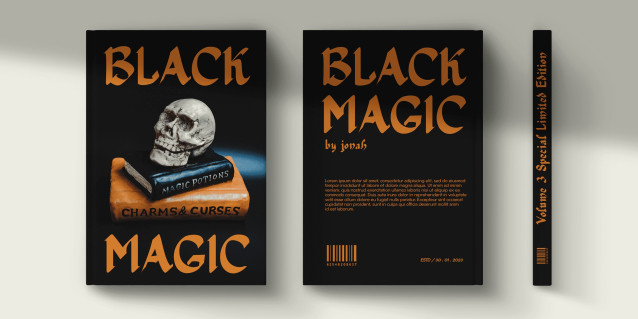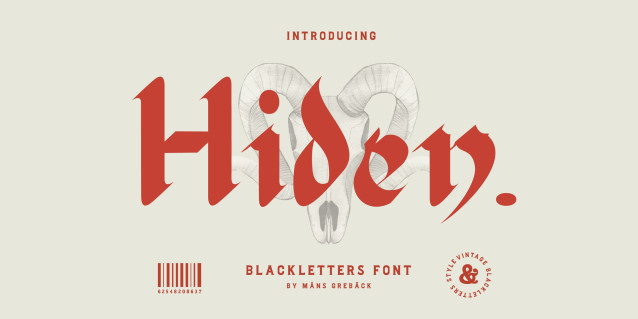
Hiden Font
Hiden Font is a calligraphic font that evokes a medieval feel with its unique script style. This font is perfect for creating a sense of antique charm and tradition. The strokes are meticulously crafted to give a hand-written look to your designs, making them one-of-a-kind. This font can be used for various projects such as historical books, invitations, posters, and logos for heritage brands. Whether you’re looking to add an old-world touch to your designs or want to celebrate tradition and history, Hiden is the perfect font for you. So why not choose a font that brings character, authenticity and a touch of the past to your work today! The Hiden family consists of four high-quality fonts: Regular, Italic, Bold and Bold Italic The font is built with advanced OpenType functionality and has a guaranteed top-notch quality, containing stylistic and contextual alternates, ligatures, and more features; all to give you full control and customizability. It has extensive lingual support, covering all Latin-based languages, from Northern Europe to South Africa, from America to South-East Asia. It contains all characters and symbols you’ll ever need, including all punctuation and numbers.